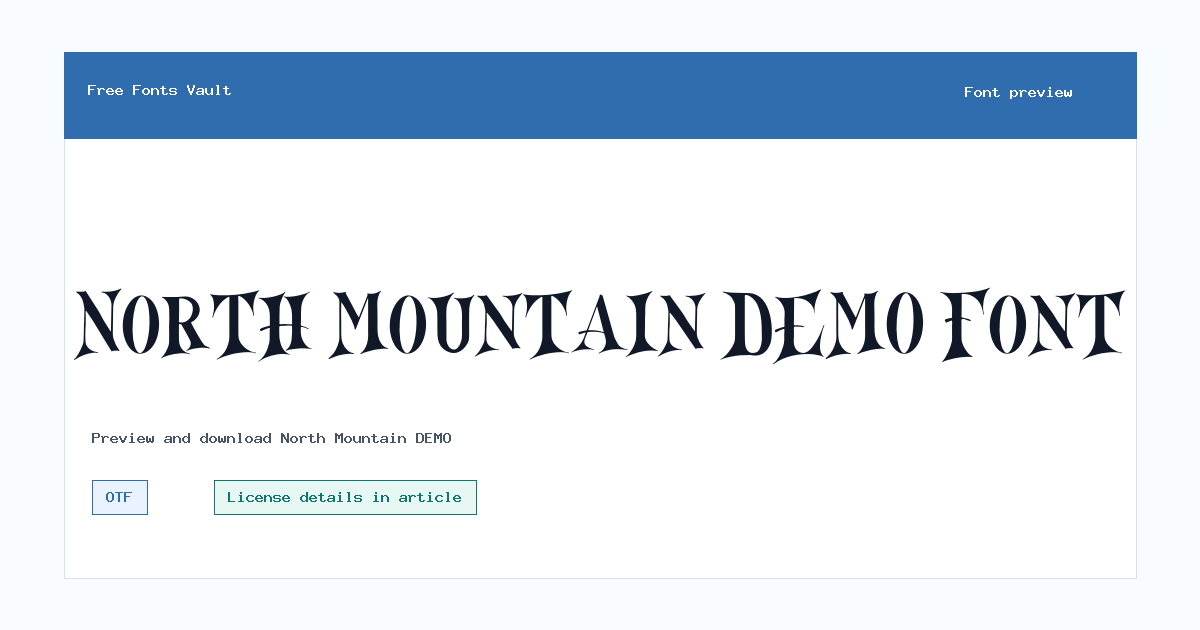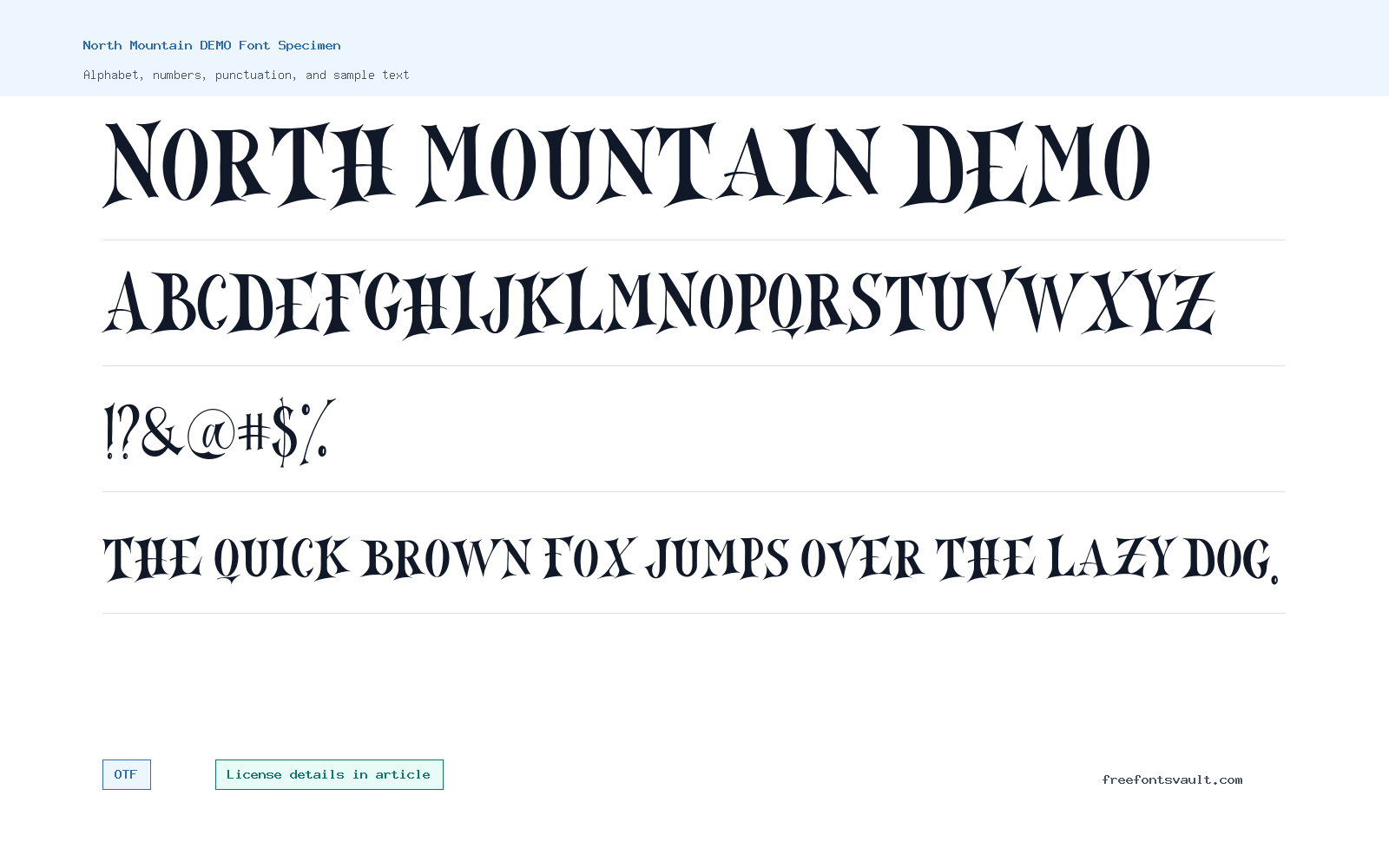
North Mountain DEMO
North Mountain DEMO font.
North Mountain DEMO is a display font from Letterhend Studio with a strong, hand-crafted look suited to bold titles, posters, labels, and short pieces of branding text.
About North Mountain DEMO
North Mountain DEMO works best when it is treated as a headline font rather than a long-reading typeface. Its name and demo status suggest a rugged display style, so it is a good candidate for testing with outdoor-themed titles, vintage badge layouts, packaging mockups, social graphics, and other designs where the font only needs to carry a few important words.
North Mountain DEMO should be judged with the words that will actually appear in the design. Rugged display fonts can look excellent in one or two bold words, but spacing may need attention when a phrase includes narrow letters, repeated capitals, or punctuation.
- Display-focused demo font suited to short titles and logo-style text tests
- Single regular style, so contrast should come from size, color, spacing, and layout
- Posters, badges, labels, and cover-style headings
- Short branding mockups, social graphics, and preview testing
- Outdoor-themed posters, rustic logo drafts, product labels, and vintage-style title treatments
- Design tests where the headline needs a rougher handcrafted tone
Keep the font for short, prominent text. Test spacing at the size you plan to use, especially for all-caps words and compact layouts. If you need body text, pair it with a simpler serif or sans serif that stays readable at small sizes.
What is North Mountain DEMO best used for?
It is best tested as a display font for short headings, poster text, badges, labels, and branding mockups rather than long paragraphs.